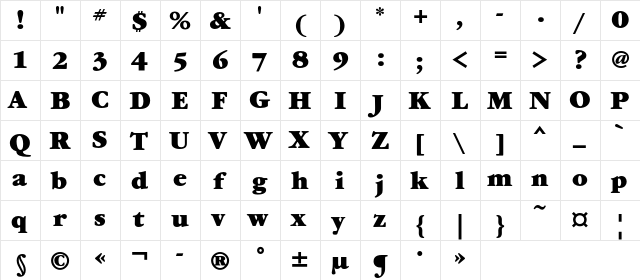
GaramondBookC Bold
Design Context for GaramondBookC Typeface
GaramondBookC is a composed and adaptable typeface that performs quietly and consistently across a wide range of design contexts. The heavy weight commands attention and anchors typographic hierarchies.
Pro Tip: Pair GaramondBookC with a font of contrasting weight or personality to build a more expressive typographic hierarchy.